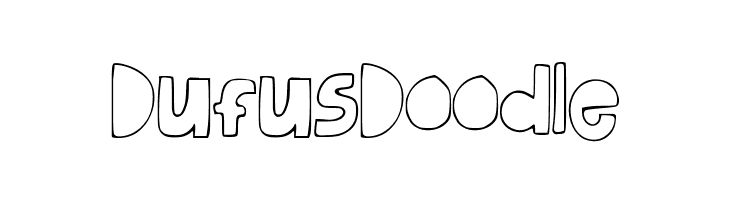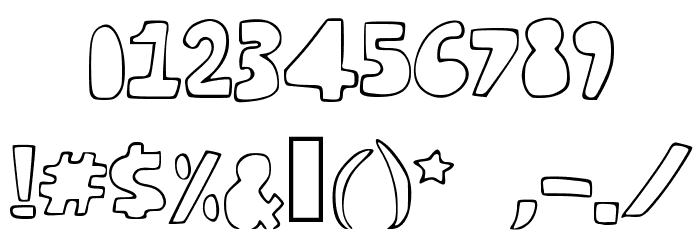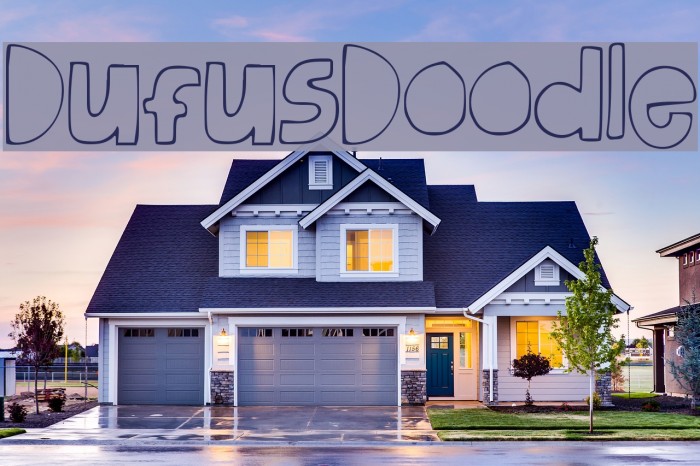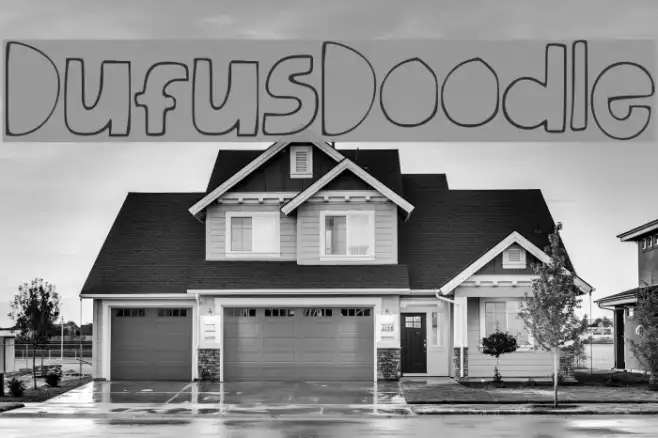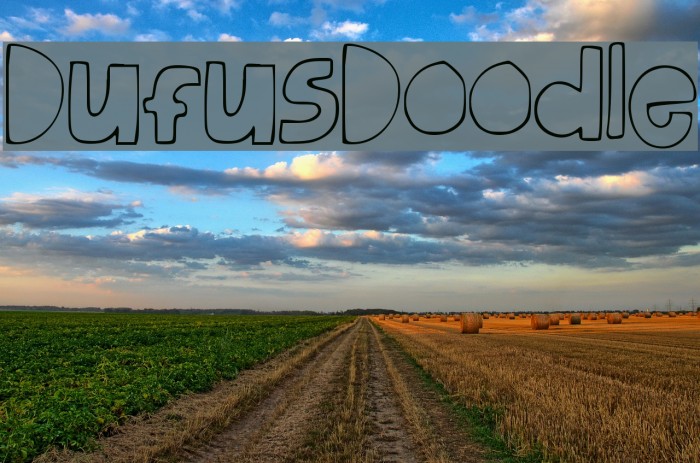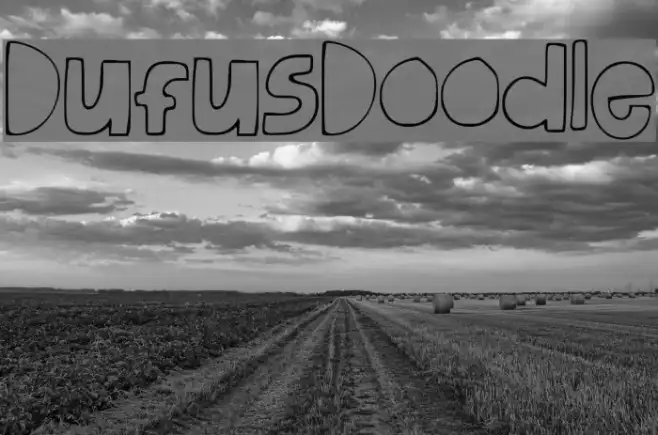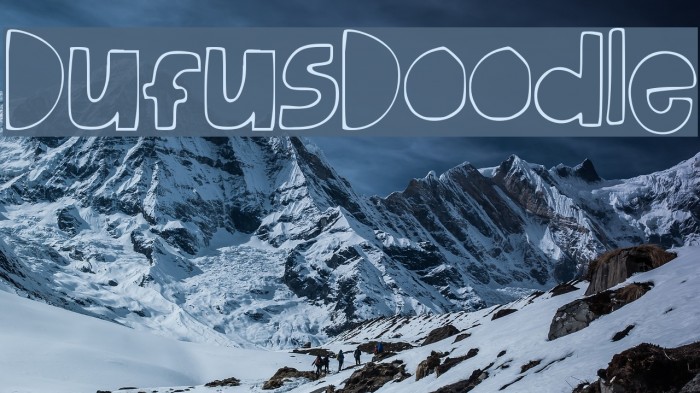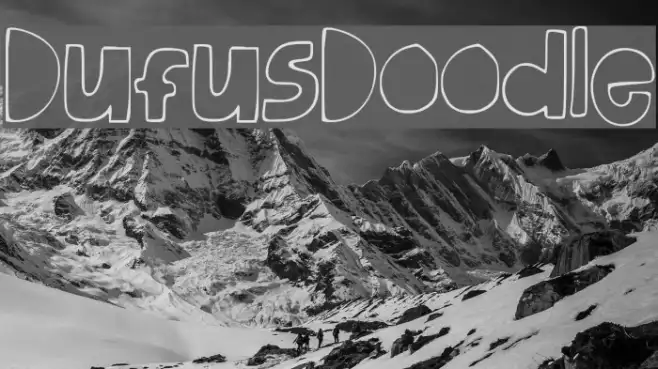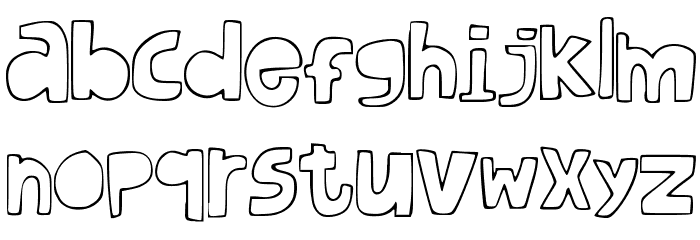
DufusDoodle Font
This playful and whimsical font features bold, rounded characters with a hand-drawn aesthetic. Each letter appears as if it has been doodled, with uneven lines and a casual, informal style. The uppercase and lowercase letters maintain a consistent thickness, creating a cohesive look across the alphabet. Numbers and special characters follow the same playful design, making them suitable for creative projects. The font's unique style is perfect for adding a fun and lighthearted touch to any design.
A playful, hand-drawn font with bold, rounded characters.
• Proposed Projects: Ideal for children's books, comic strips, playful branding, and creative posters.
• Category: Decorative/Display
• Bold: Yes
• Italic: No
• Weight: Bold
• Width: Normal
• Character Spacing: Normal
• Contrast: Low
• Overall Style: Whimsical
• Use Case: Headlines, Logos, Posters